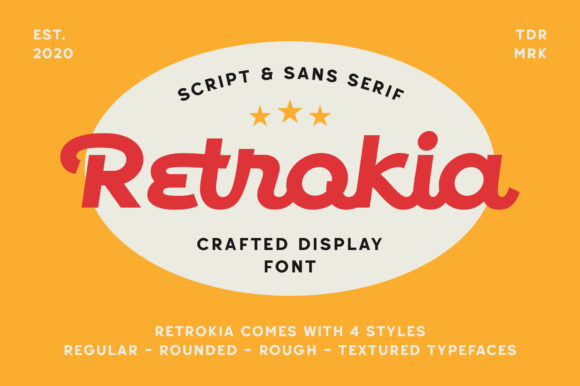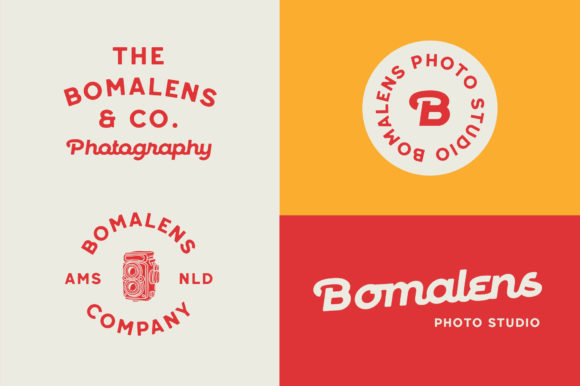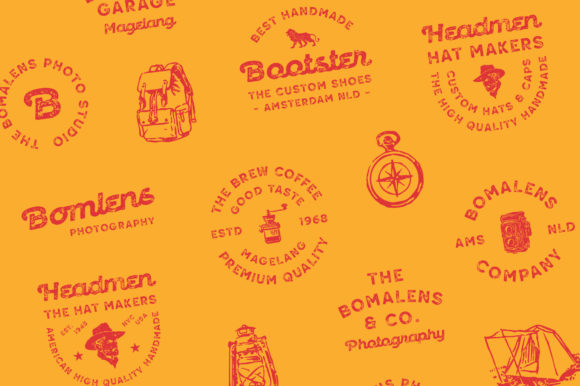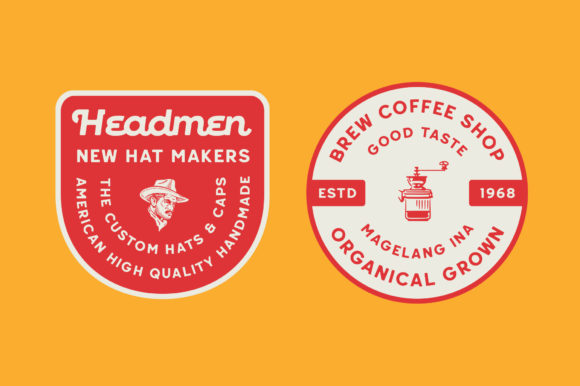
Retrokia Font
About the Retrokia Font
Meet Retrokia Font, a stunning font that brings a touch of elegance and professionalism to any design. Retrokia is a cool and bold duo font (display and script). This font reads as strong, confident, and dynamic and can add tons of nostalgic character to your designs. Retrokia is PUA encoded which means you can access all of the glyphs and swashes with ease!
Retrokia excels in headline applications, logos, and short impactful phrases where its bold, confident nature shines. It’s ideal for branding projects aiming for a retro-modern aesthetic, posters, and packaging designs that need a strong visual punch. However, its display style is not suitable for body text or extended reading; its weight and stylistic flourishes make it less legible for paragraphs. Avoid using it in user interfaces (UI) where readability is paramount.
To balance Retrokia’s strong personality, pair the display font with a clean sans-serif like Montserrat for body copy, or a more delicate serif like Playfair Display for a touch of elegance. For a playful contrast, consider a rounded geometric sans-serif like Futura. Pairing the script font could work well with a minimalist sans-serif for a modern, balanced feel.
Retrokia’s overall personality is bold, dynamic, and nostalgic, conveying a sense of retro-inspired confidence and energy. It’s perfect for brands aiming for a vintage yet modern feel, suggesting strength and a touch of playful rebellion.
Retrokia Font Usage Examples
Retrokia Font Example